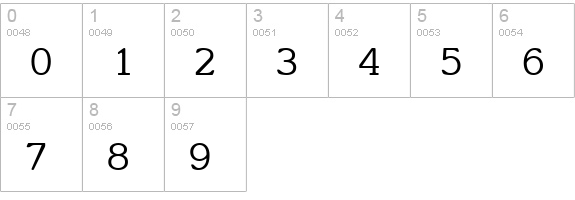
Ensemble SSi Font Details
Ensemble SSi is a stylish and versatile font that exudes elegance and sophistication. With its clean lines and modern aesthetic, this font is perfect for a wide range of design projects, from branding to editorial design. The sleek and polished look of Ensemble SSi makes it a popular choice for those looking to add a touch of class to their work. The best part? Ensemble SSi is available for free download at FontsMarket.com. Whether you're a designer looking to elevate your creations or someone in need of a sleek and professional typeface, Ensemble SSi is the perfect choice. Download it today and start creating stunning designs with ease.